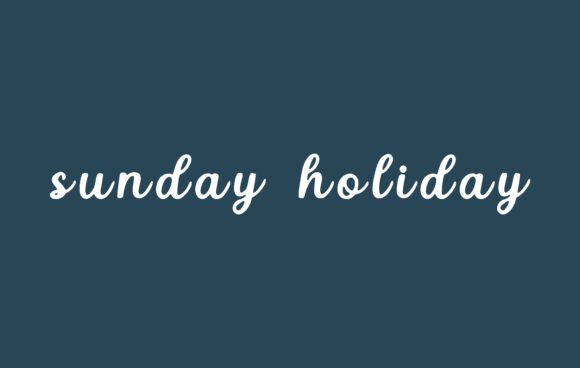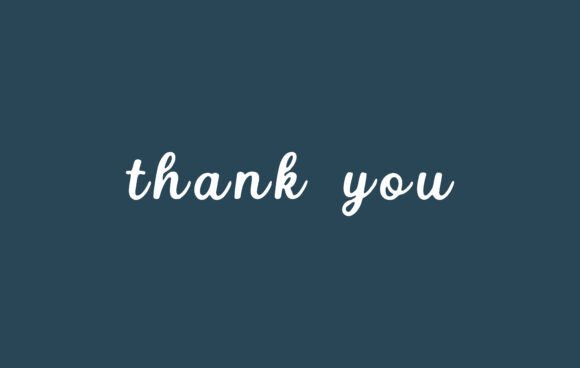
Introduction to Luxecraft Font
LuxeCraft font is an authentic handwritten font with a romantic touch.
Key Features of Luxecraft Font
Why Choose Luxecraft Font?
Luxecraft Font offers exceptional quality and versatility, making it a valuable addition to your design toolkit. Whether you’re creating for personal projects or commercial use, Luxecraft Font delivers professional results.